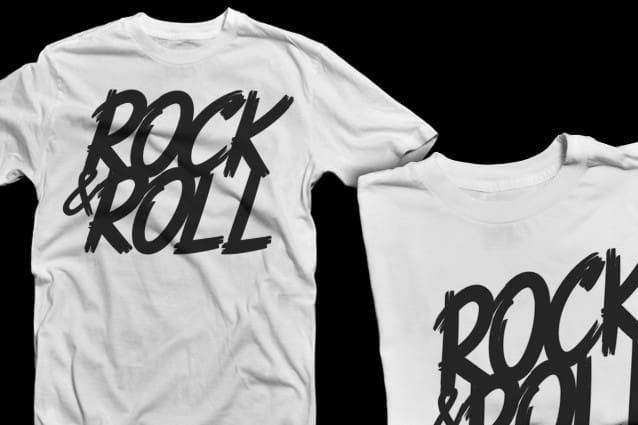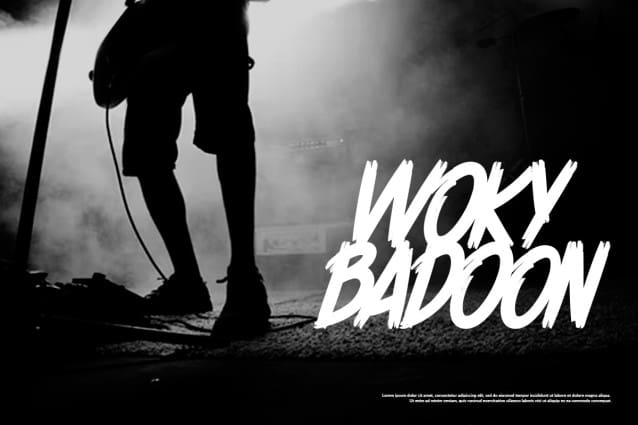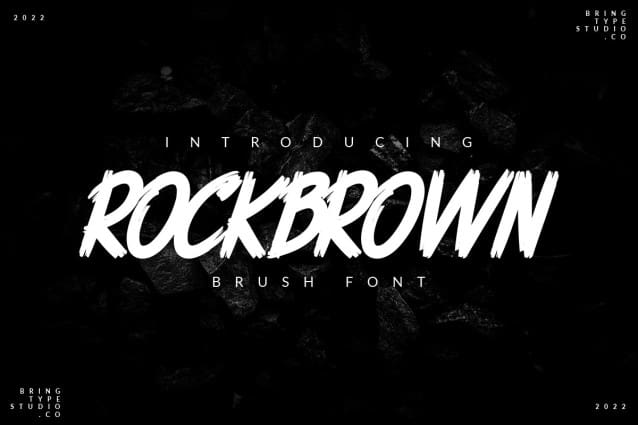
Rockbrown Brush Font
Rockbrown Brush Font made with a square line and an exact curve between one and the other, this font is perfect for branding, headings, signatures, logos, blogs, wedding invitations, t-shirts, letterheads, merchandise, signage, labels, news, posters, badges, etc. HILDANE also includes multilingual, numbers, alternatives, punctuation.